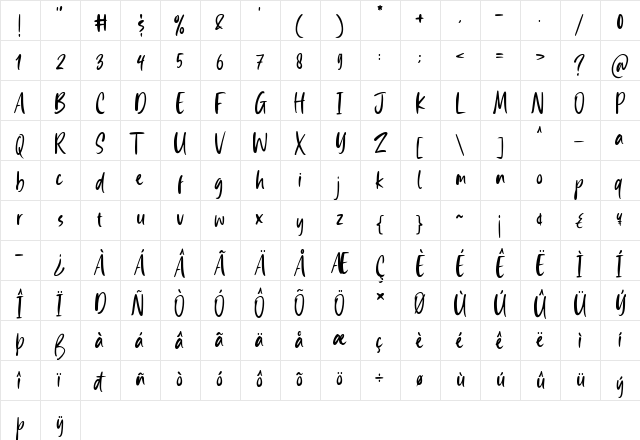
East Watch Regular
Design Context for East Watch Typeface
East Watch is a composed and adaptable typeface that performs quietly and consistently across a wide range of design contexts.